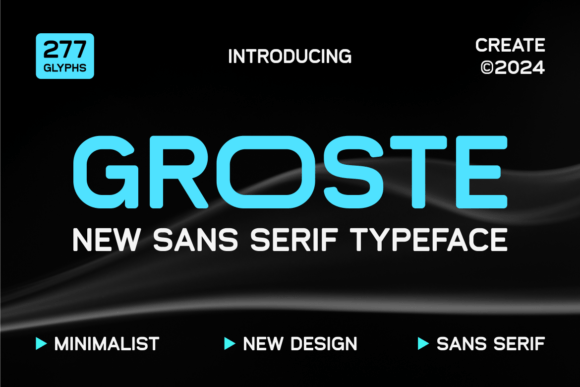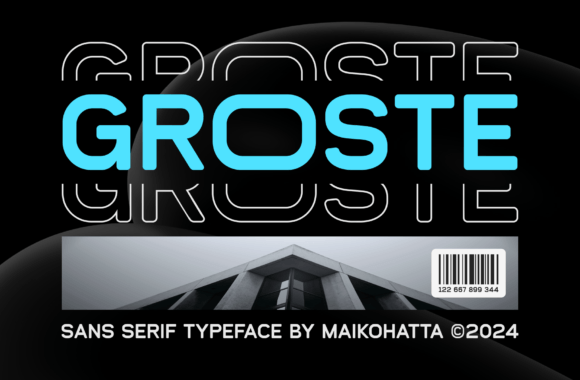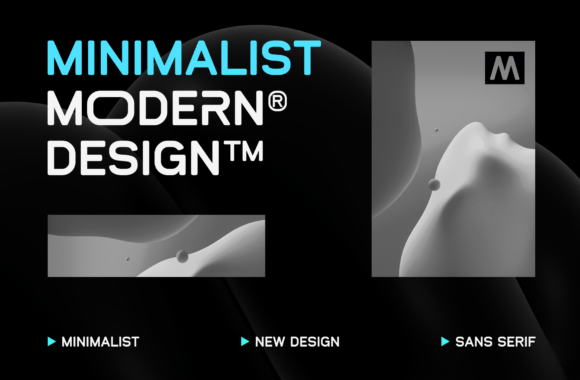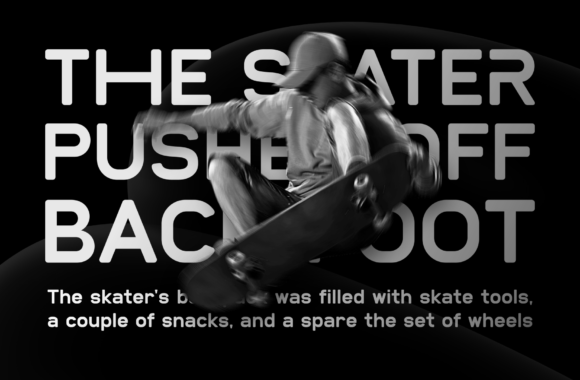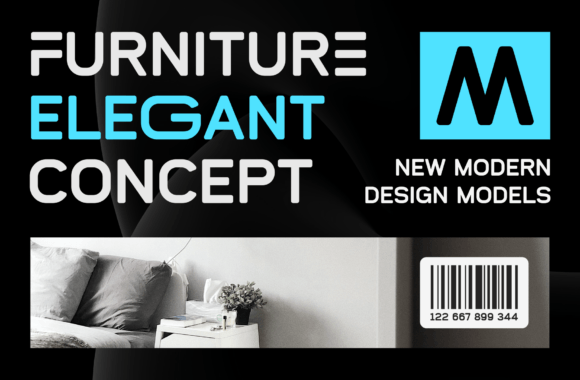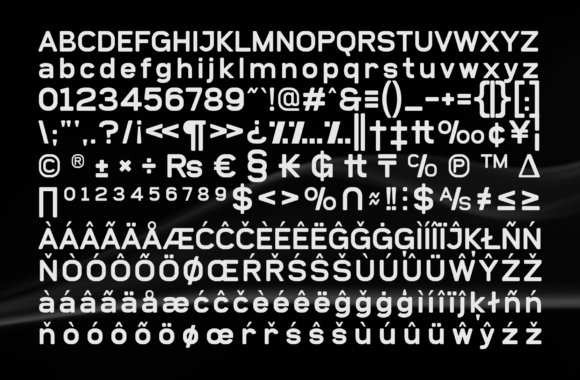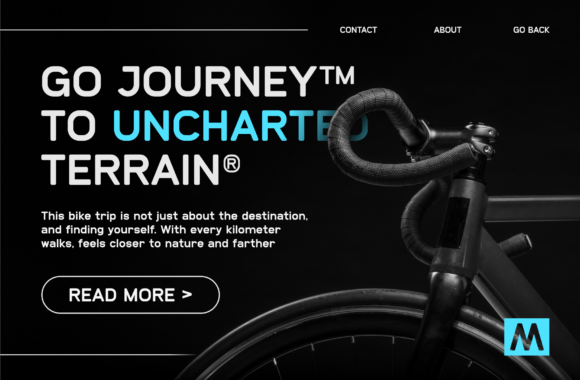
Discovering the Perfect Font: A Designer’s Best Friend
Have you ever stared at a blank canvas, trying to find the perfect font to bring your design to life? We’ve all been there – scrolling through font libraries, testing out different styles, and finally, landing on the one that just feels right. For designers, the right font can make all the difference between a good design and a great one. That’s where the Groste Font comes in – a clean, modern typeface designed to make your projects shine.
Whether you’re working on a digital campaign or a print publication, the Groste Font is the perfect choice. Its simplicity and readability make it easy to use in a variety of contexts, adding a touch of professionalism to any design without being too distracting. As a designer, you’ll appreciate the versatility and ease of use that the Groste Font offers.
Groste Font Key Features
- Font Family: Groste Font is a sans-serif typeface with a unique, futuristic design.
- Unique Characteristics: Groste Font features a distinctive, geometric design with clean lines and a minimalist aesthetic.
Groste Font Review
I’ve had the chance to work with the Groste font, and overall, I’m impressed. Here are some of the things that stand out:
- ✨ Unique aesthetic: Groste has a distinct style that sets it apart from other fonts. The bold lines and geometric shapes create a visually striking effect that can add a lot of personality to a design.
- ✨ Highly legible: Despite its bold appearance, Groste is surprisingly easy to read, even at small font sizes.
- ✨ Versatile: Groste can be used for a wide range of applications, from headlines to body text, and even for logos.
- ⚠️ Limited character set: The Groste font only includes a limited character set, which may make it difficult to use for languages that require a wider range of characters.
- ⚠️ Not ideal for small text: While Groste is legible, it’s not the best choice for small text, as the bold lines can make it difficult to read.
Overall, I think the Groste font is a great choice for designers who want to add a unique touch to their projects. While it may have some limitations, its unique aesthetic and versatility make it a valuable addition to any design toolbox.
Getting the Most Out of Groste Font
To get the most out of Groste Font, use it in bold or italic styles to add emphasis to your text. You can also pair it with other fonts to create a unique and eye-catching design.
Groste Font is ideal for use in creative projects such as posters, flyers, and social media graphics. It’s also a great choice for use in headings and titles to add a touch of elegance and sophistication.
Alternatives to Groste Font for Designers
Montserrat is a sans-serif font designed for urban environments. It’s great for use in headings and titles, especially in digital media. Montserrat is more geometric and modern compared to Groste Font, which is more rounded and elegant. When to use: Digital media, headings, and titles.
Lato is a sans-serif font that’s highly legible and versatile. It’s suitable for use in body text, as well as headings and titles. Lato is more modern and clean compared to Groste Font, which has a more vintage feel. When to use: Body text, headings, and titles in modern designs.
Open Sans is a popular sans-serif font that’s highly legible and versatile. It’s great for use in body text, as well as headings and titles. Open Sans is more neutral and clean compared to Groste Font, which has a more distinctive personality. When to use: Body text, headings, and titles in modern and minimalistic designs.
Merrweather is a classic serif font that’s great for use in body text and headings. It’s more traditional and elegant compared to Groste Font, which is more modern and geometric. When to use: Body text, headings, and titles in traditional and elegant designs.